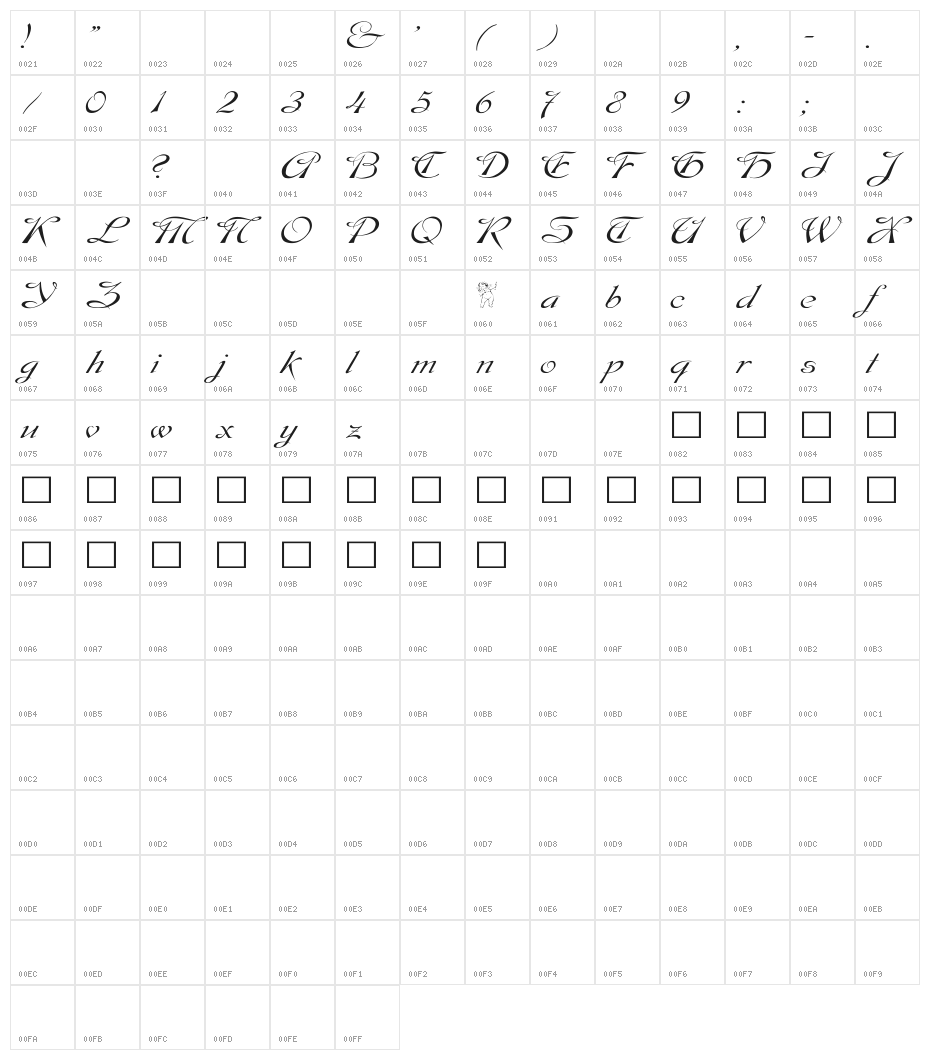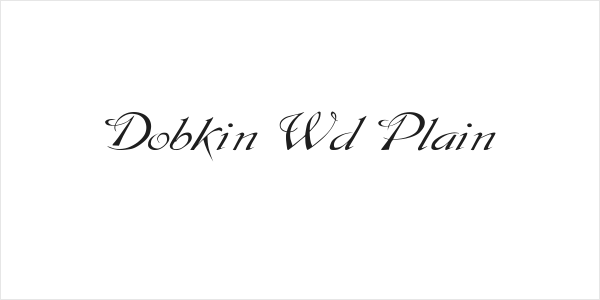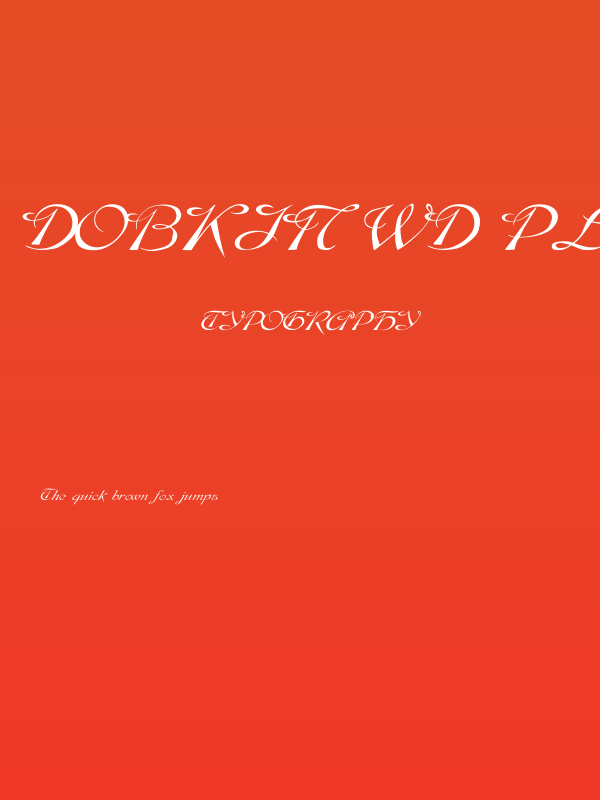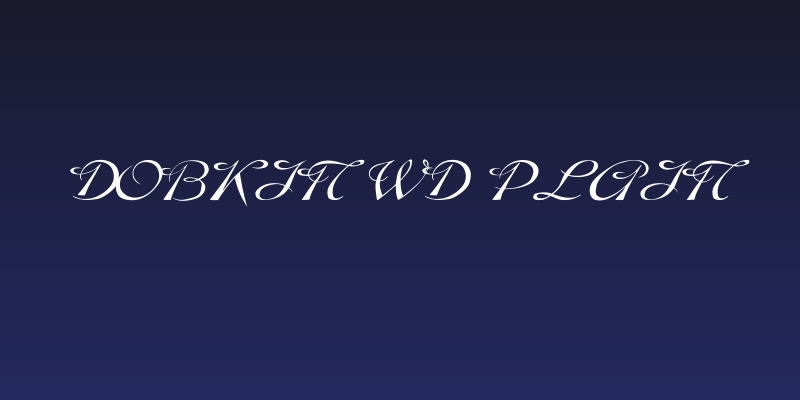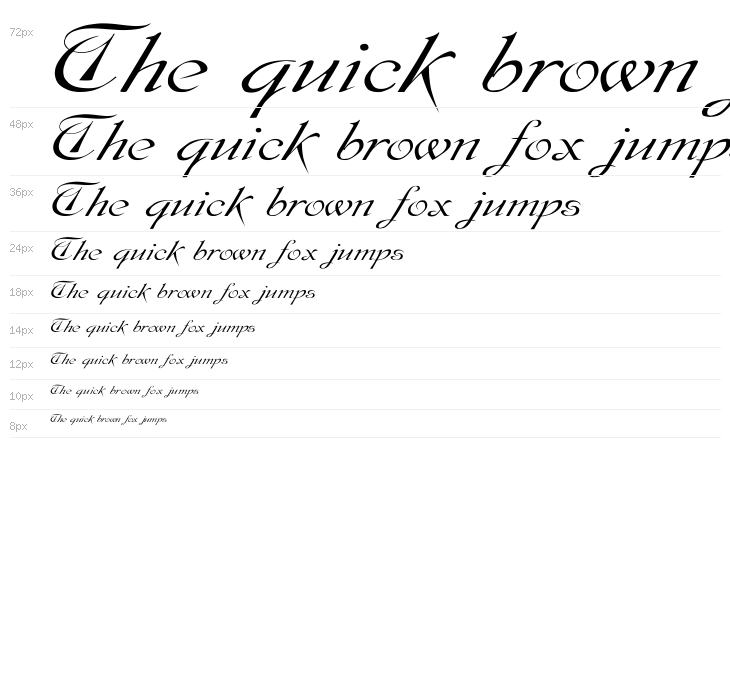
Dobkin Wd Plain Font
Dobkin Wd Plain Description
This elegant script font features flowing, cursive letterforms with a distinct calligraphic style. The uppercase letters are ornate, with intricate loops and swashes that give a sense of movement and grace. The lowercase letters maintain a consistent slant, enhancing the fluidity of the text. The numerals are designed with similar elegance, featuring curved strokes and a slight slant. Special characters are crafted with attention to detail, complementing the overall aesthetic. This font exudes sophistication and is ideal for formal invitations, branding, and decorative purposes.
| Overall Style | Elegant, Decorative |
| Use Case | Invitations, Branding, Decorative text |
| Proposed Projects | Ideal for wedding invitations, luxury branding, greeting cards, and decorative projects. |